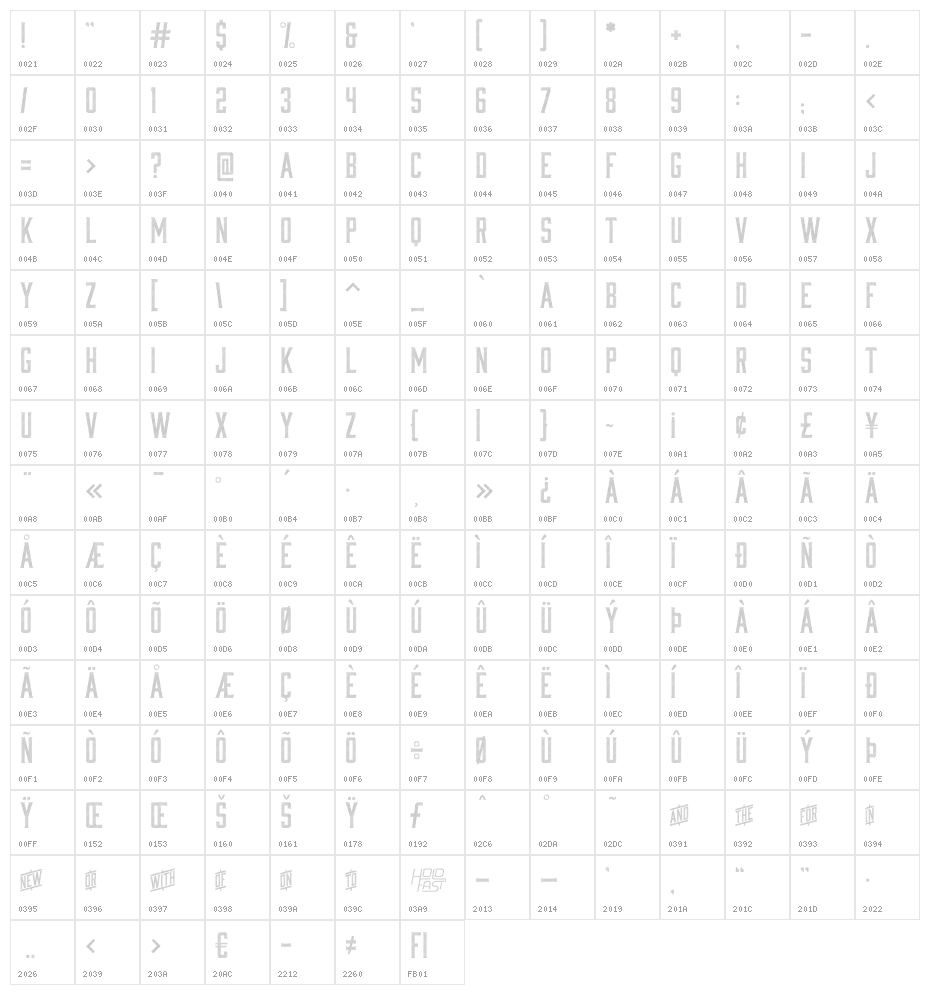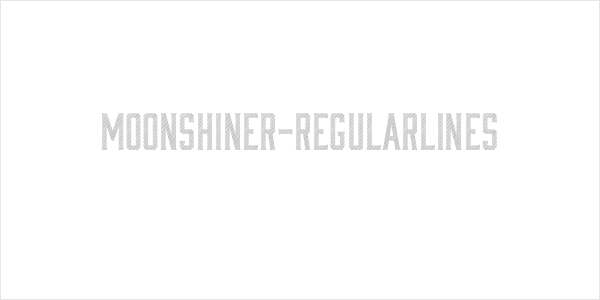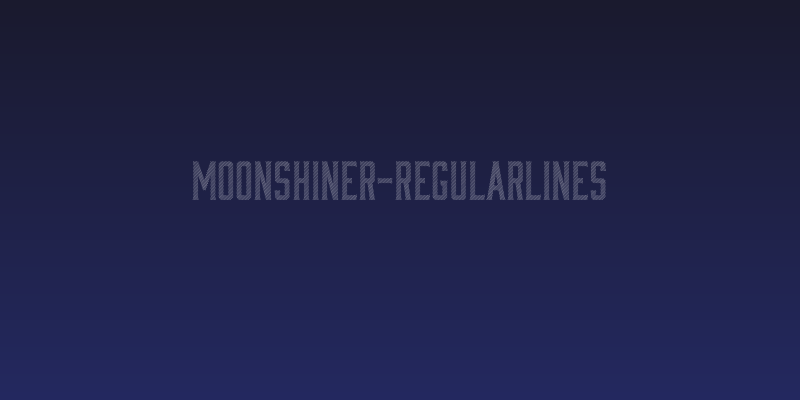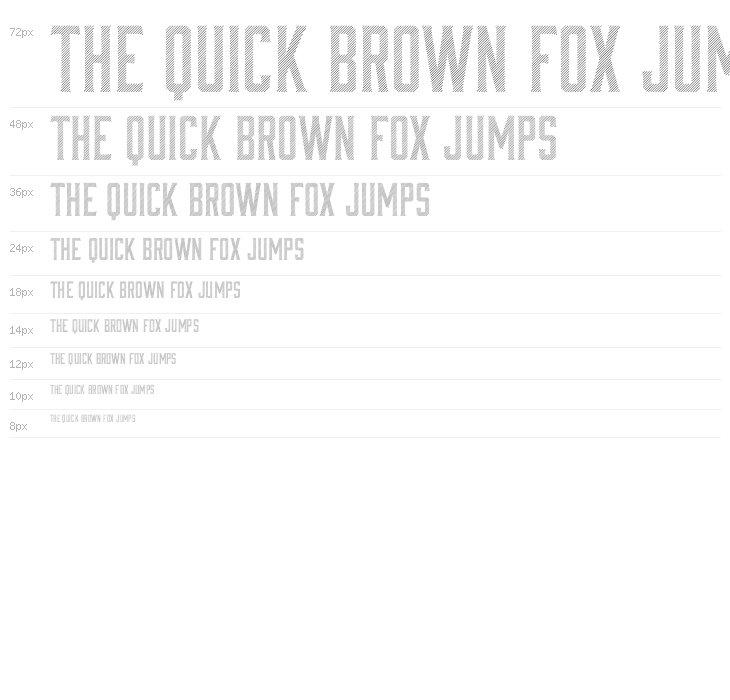
Moonshiner-RegularLines Font
Moonshiner-RegularLines Description
This font features a unique lined texture that gives it a distinct and eye-catching appearance. The characters are bold and uppercase, with a geometric and structured design. Each letter is filled with diagonal lines, creating a textured effect that adds depth and interest. The numbers and special characters follow the same design, ensuring consistency throughout. This font is ideal for projects that require a bold statement or a modern, industrial feel.
| Proposed Projects | Ideal for branding, posters, headlines, and any design needing a bold, modern touch. |